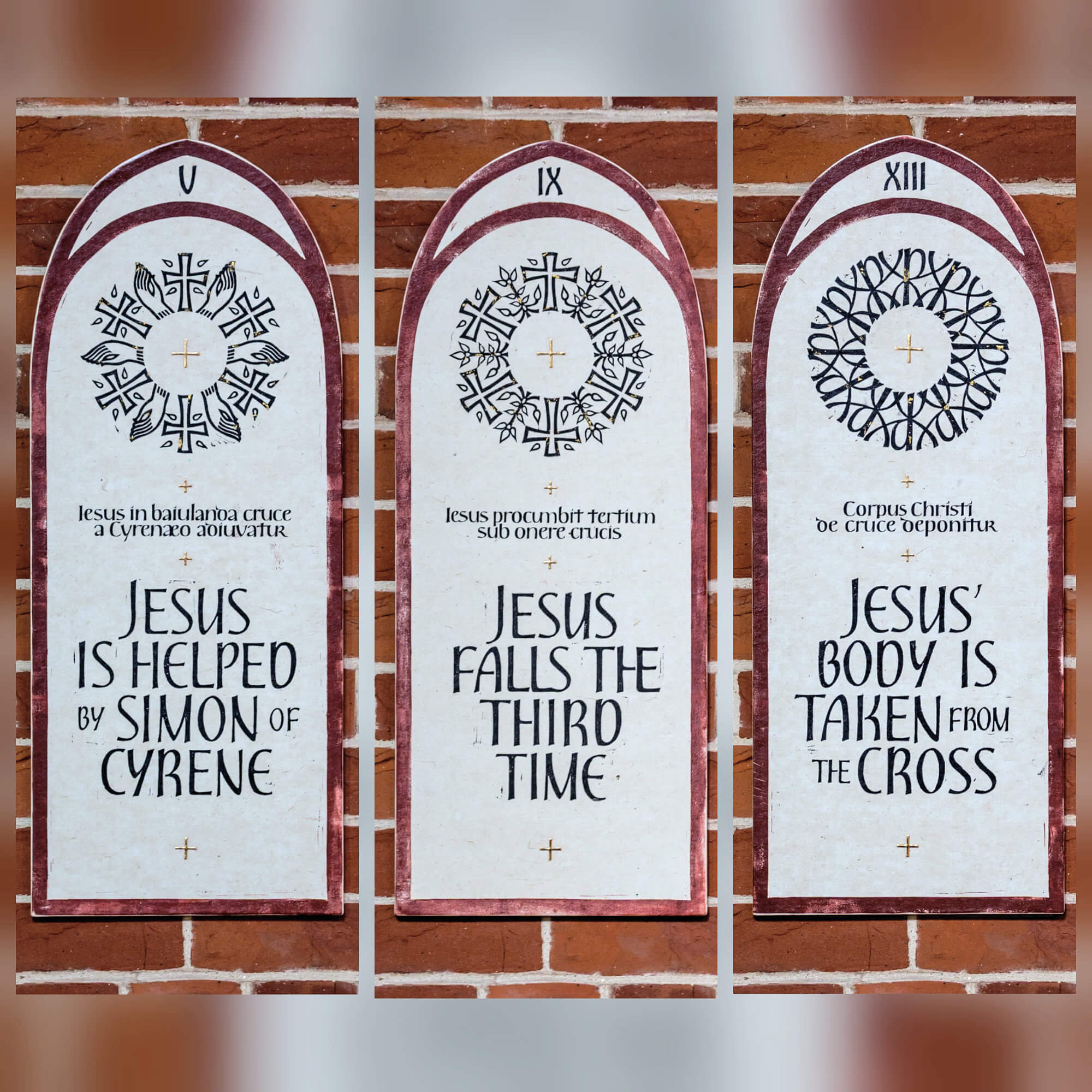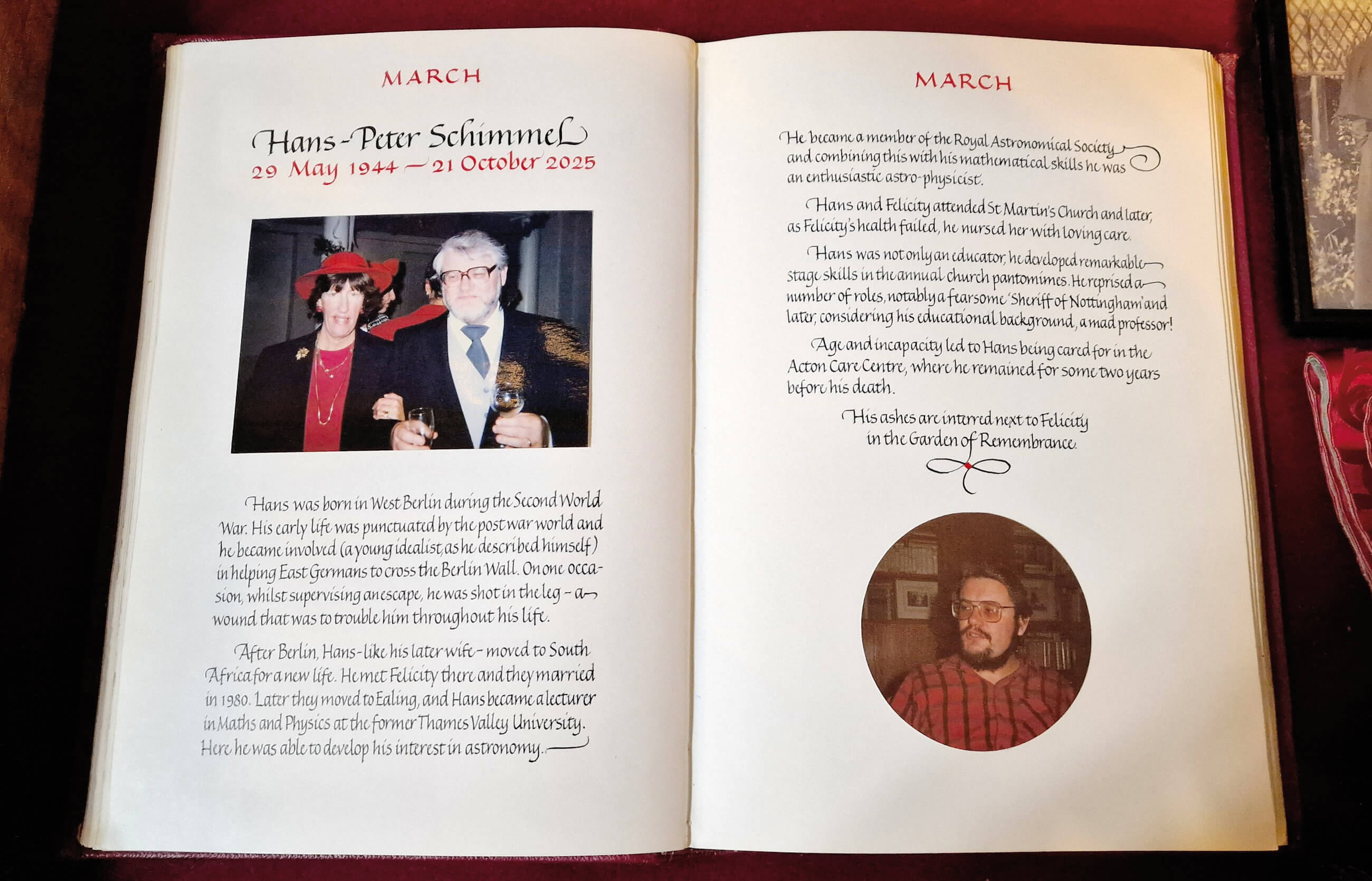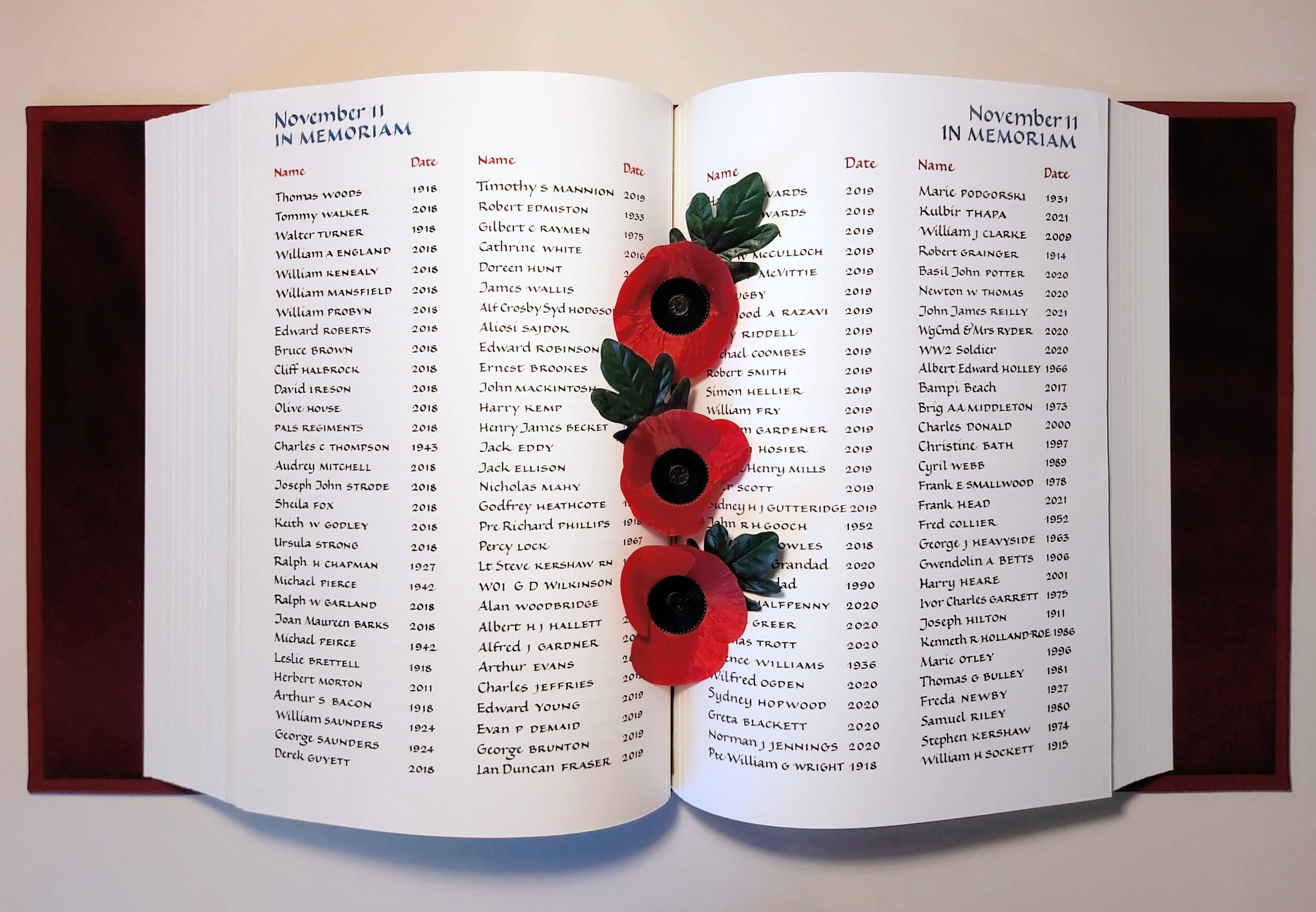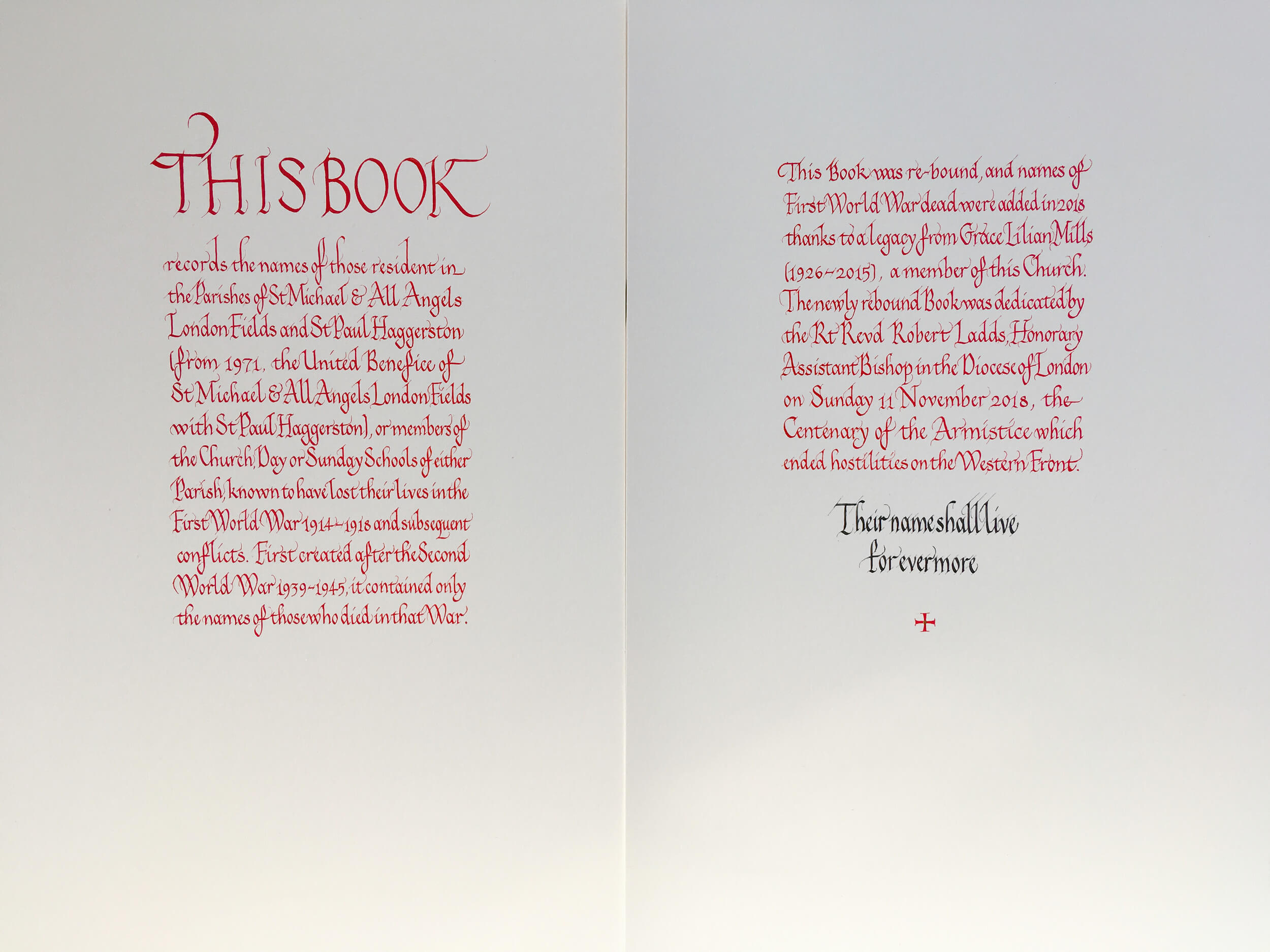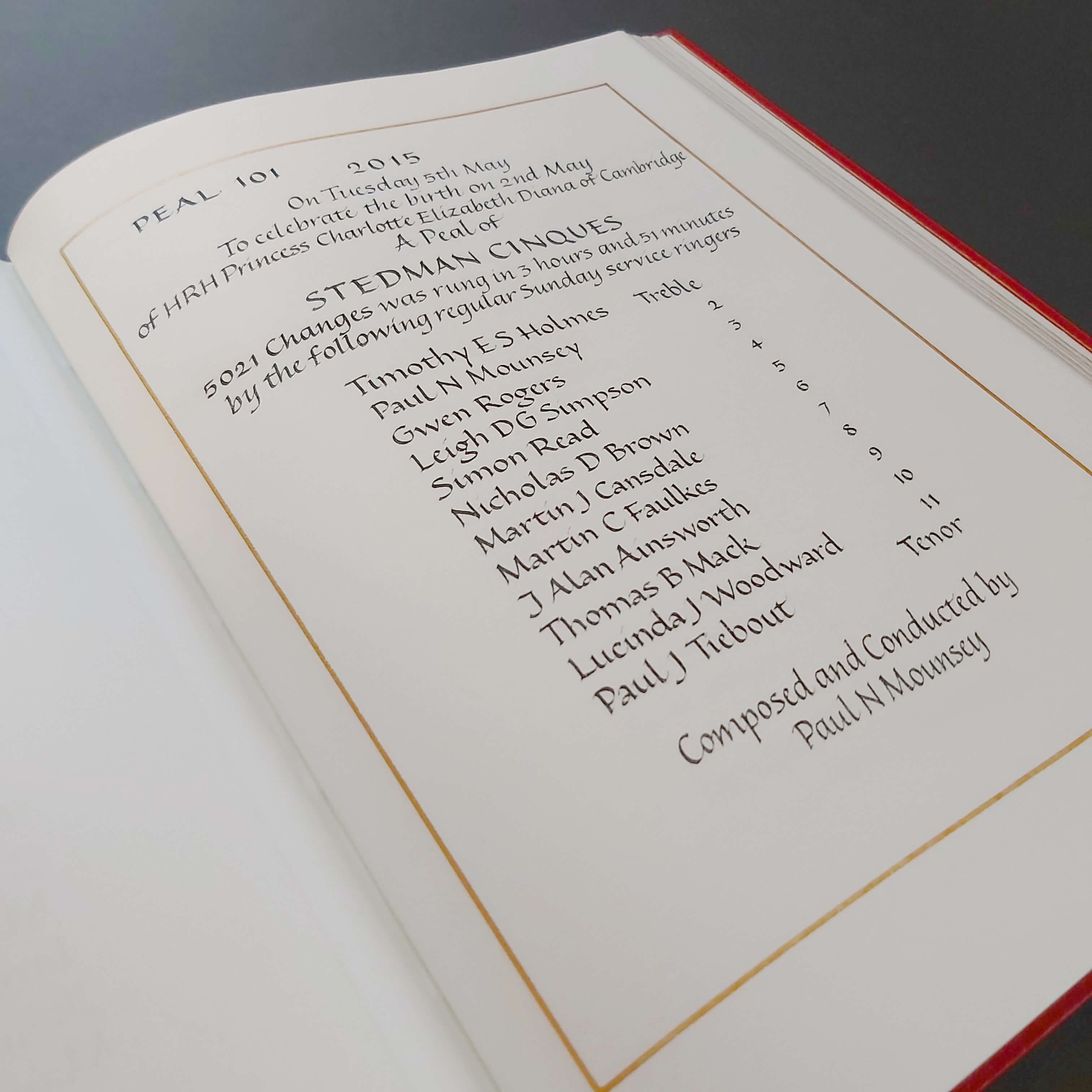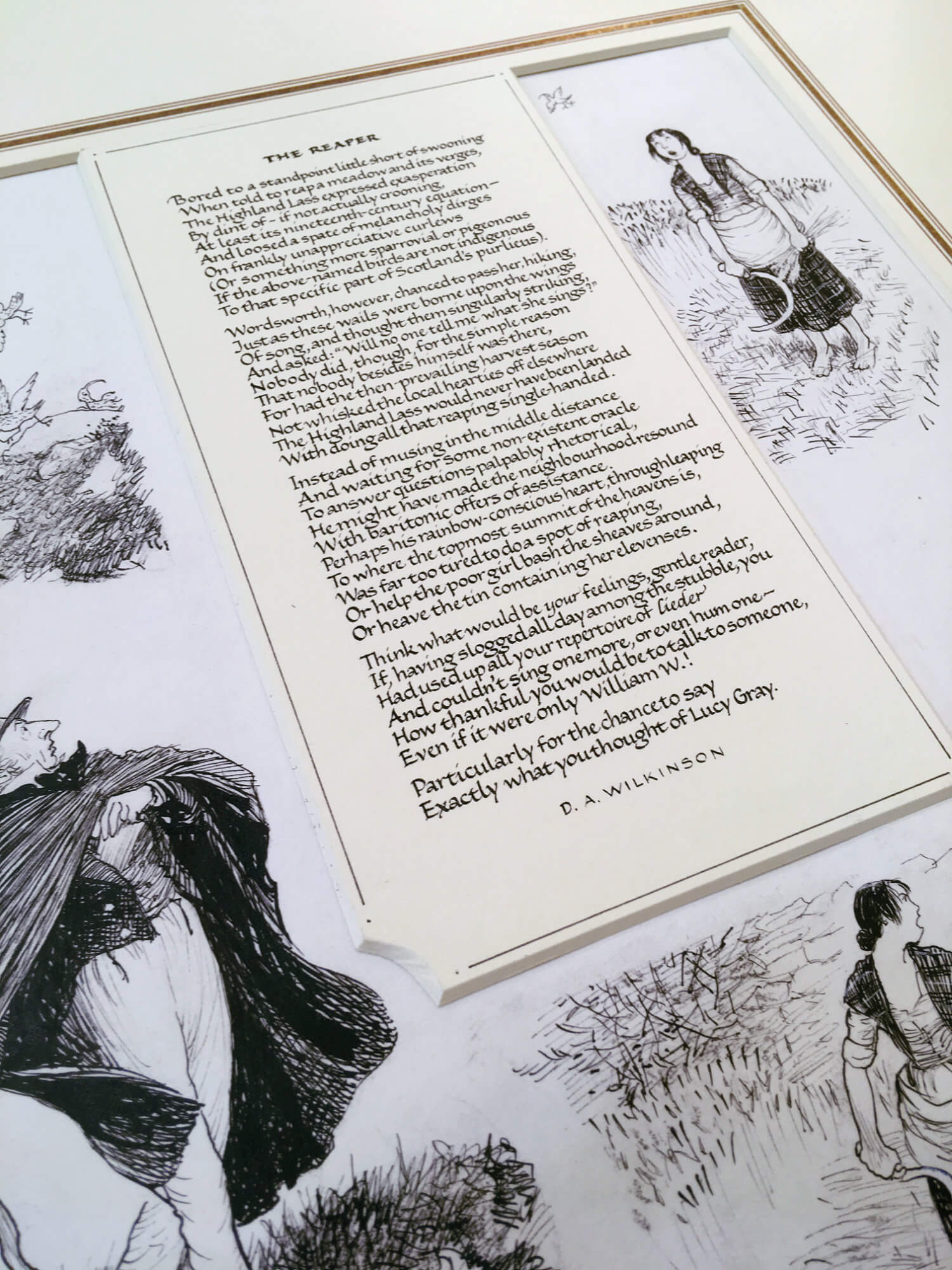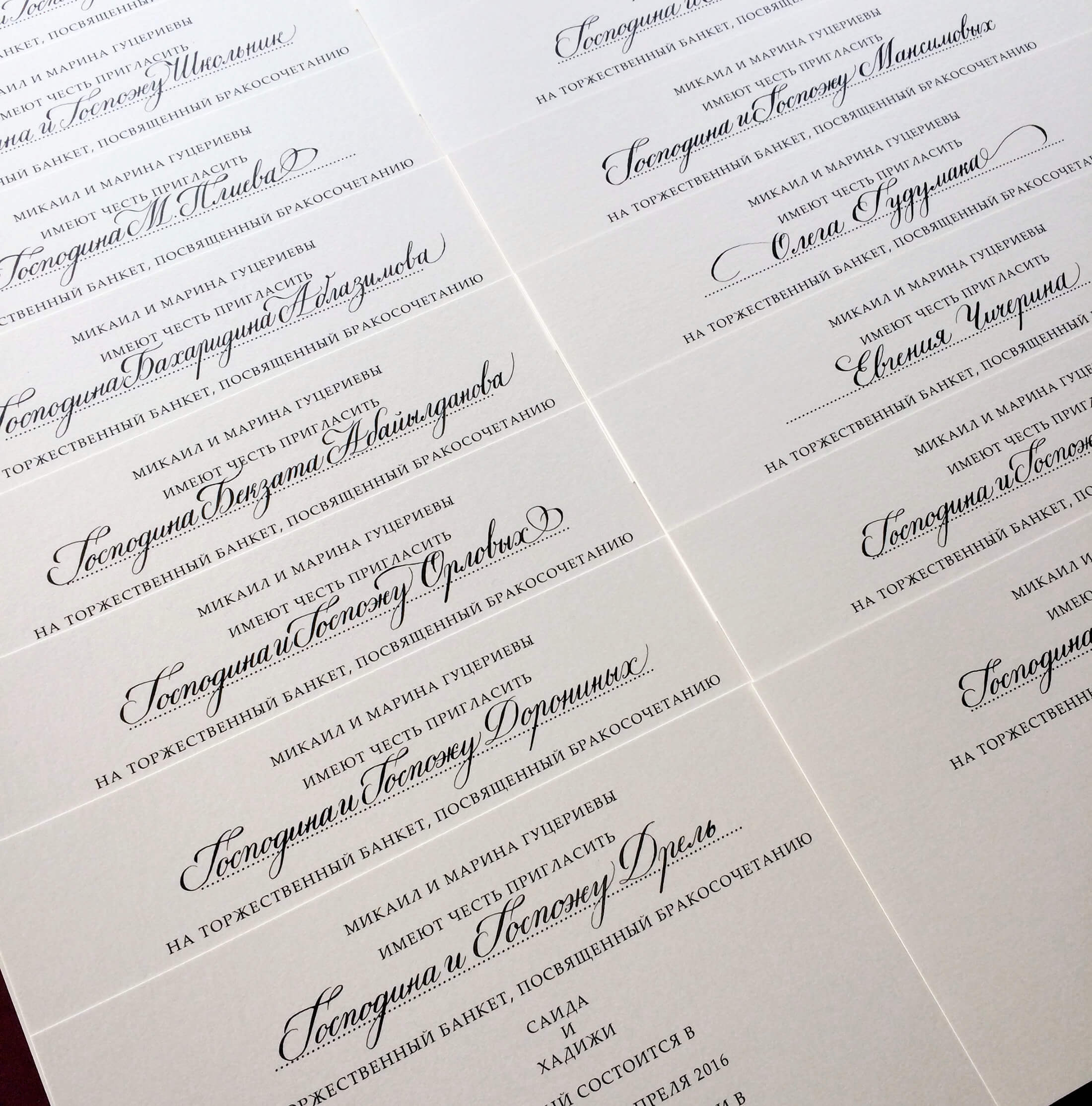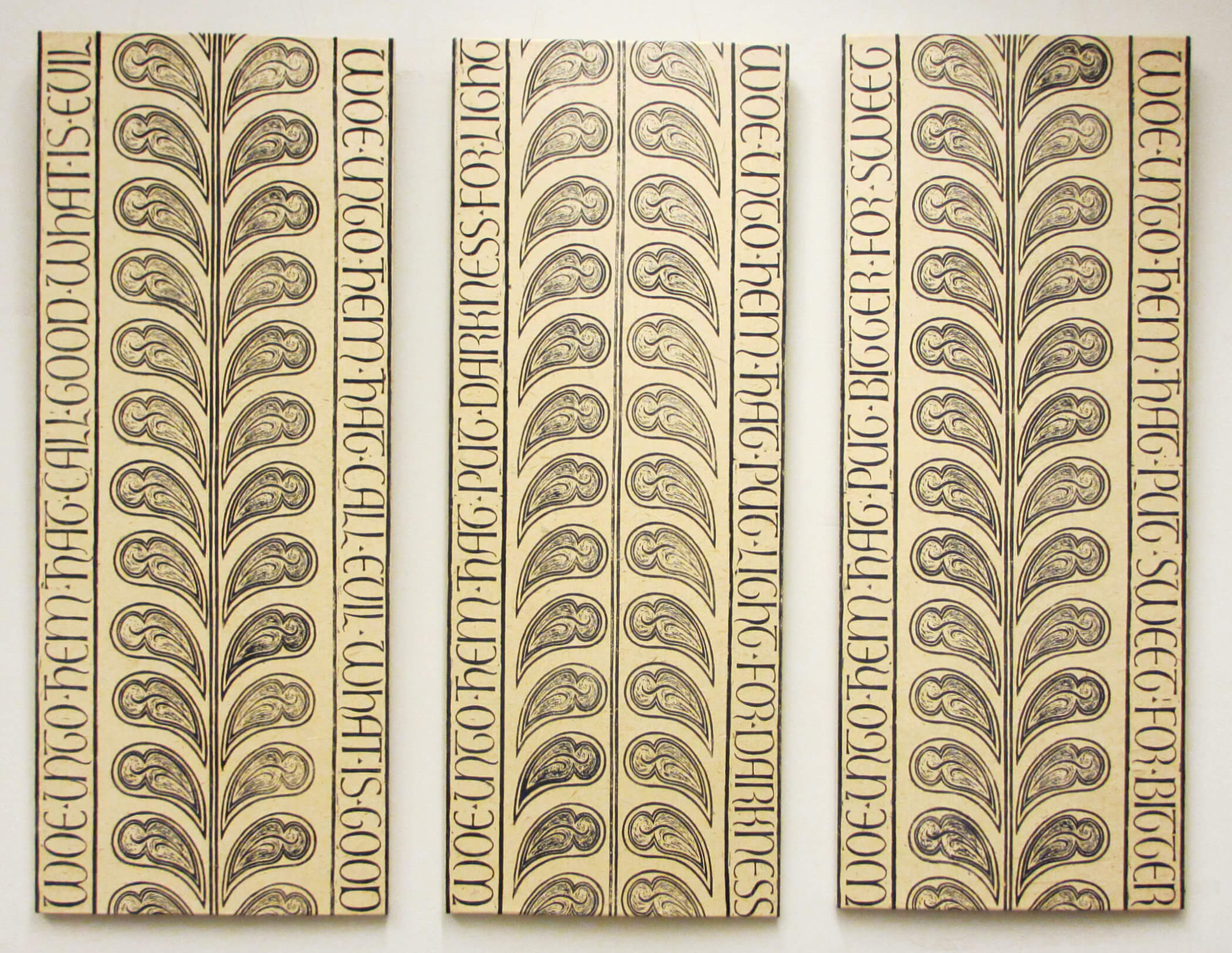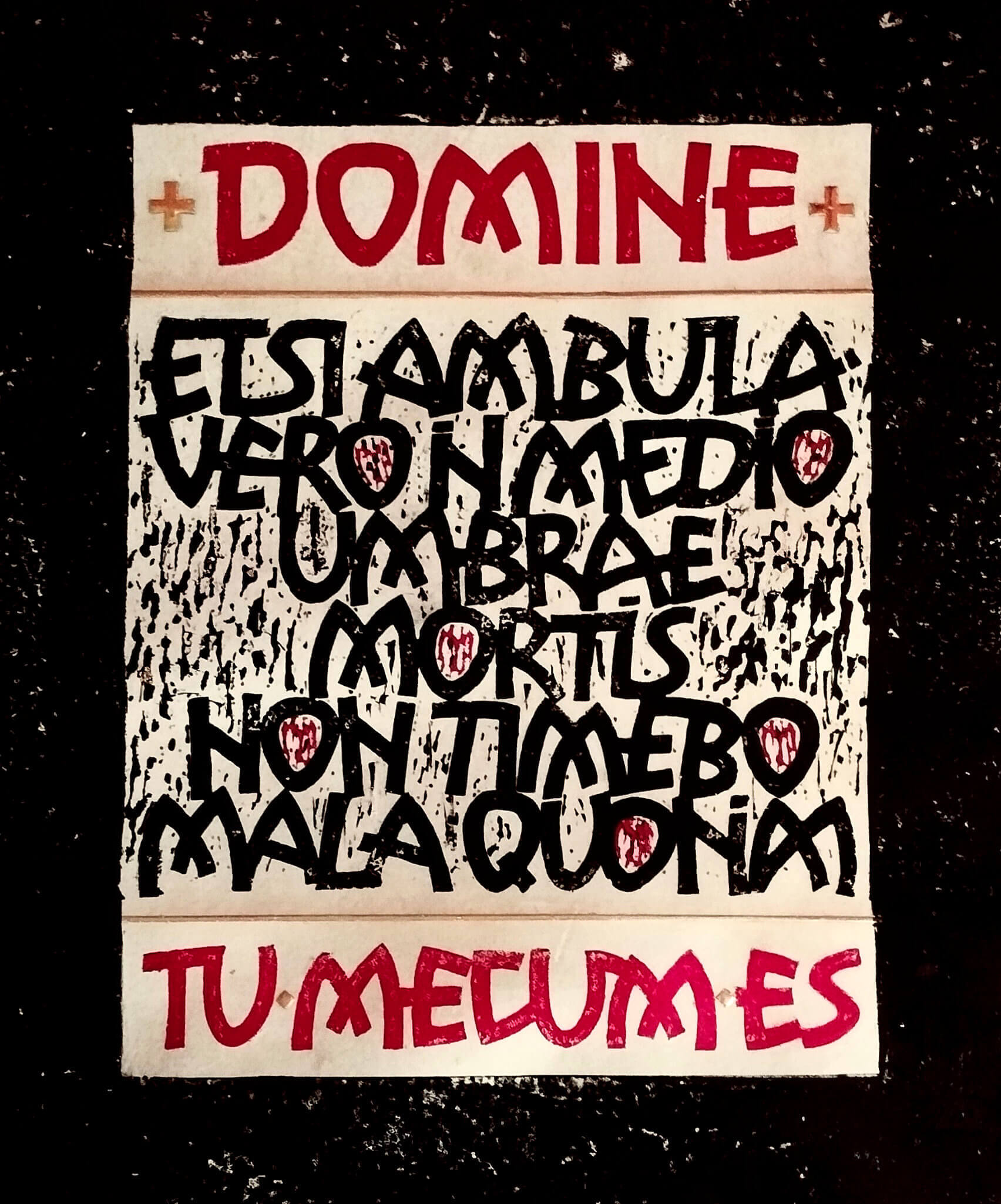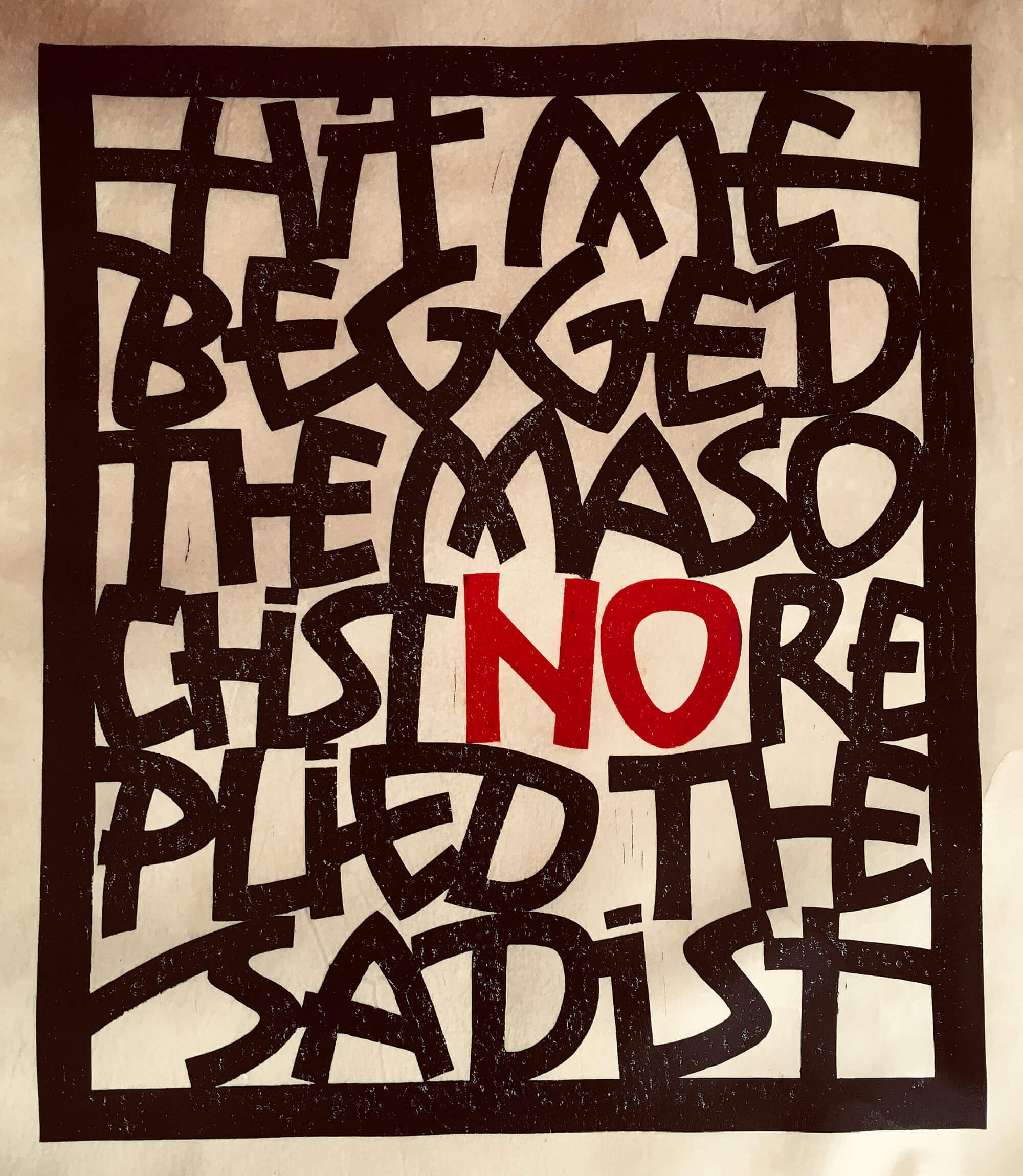
Michela is a calligrapher and linocutter who specialises in Books of Remembrance and formal ecclesiastical commissions.
She originally studied calligraphy via correspondence with Gaynor Goffe before completing the University of Sunderland Calligraphy with Design Foundation Degree in 2012. She has been an Associate Member of Letter Exchange since 2006 and elected to Full Member in 2026, is a Fellow of the Society of Scribes & Illuminators as well a Fellow and former Chairman of the Calligraphy & Lettering Arts Society.
Regular clients include the Royal British Legion, The King’s Household Division, the Royal Society, various Worshipful Companies, as well as charities, churches and galleries across London. Accepts commissions also in Cyrillic alphabets.
Her personal work consists mainly of lino-lettercuts printed on handmade papers or reindeer vellum and mounted on wood, placing a focus on patterns and interdisciplinary connections.